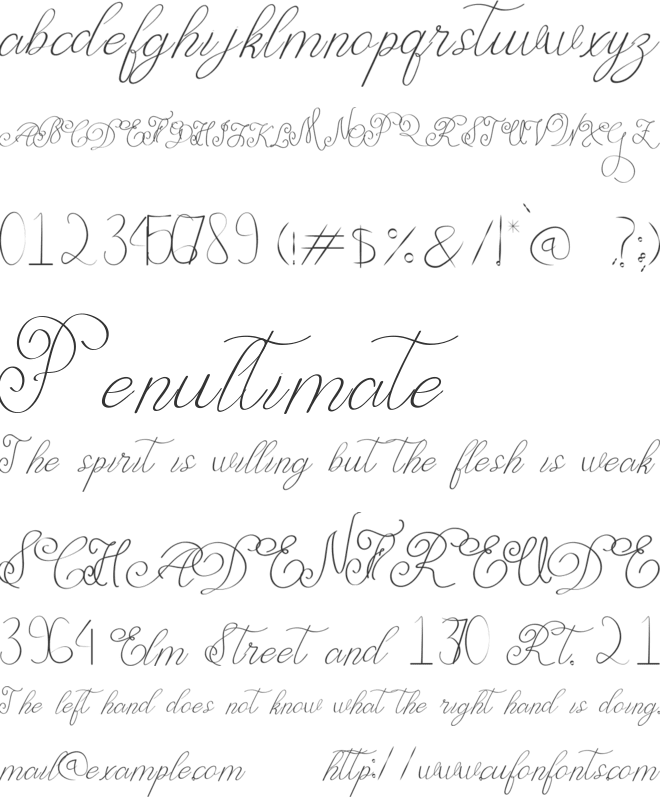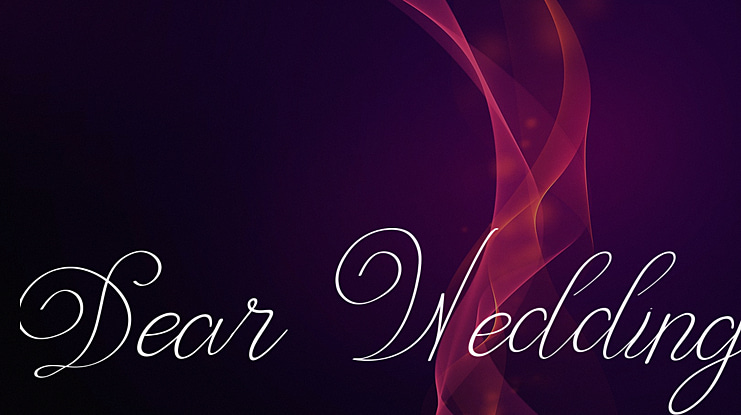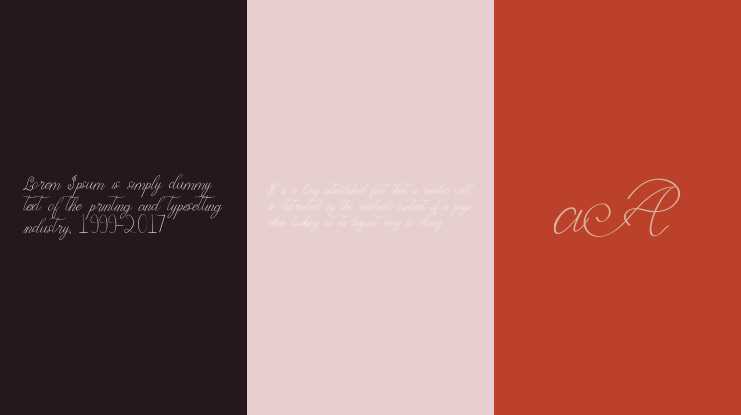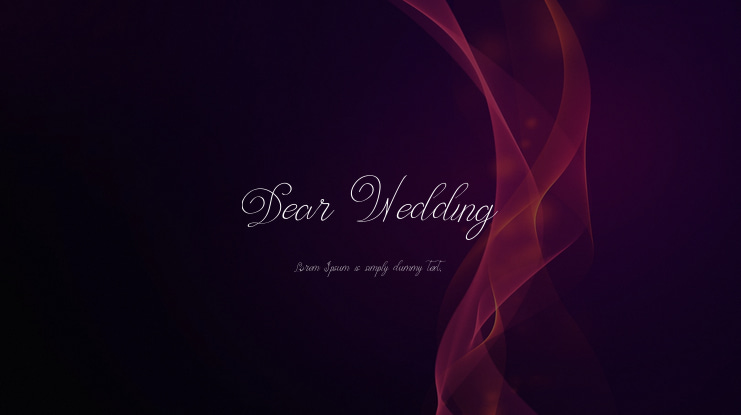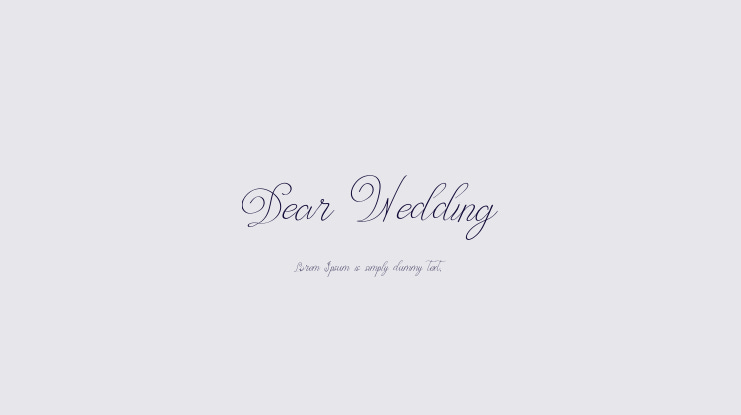
Dear Wedding Font Family
Dear Wedding is a simple and flowing handwritten font. Fall for its ravishing style and use it to create gorgeous wedding invitations, beautiful stationary art, eye-catching social media posts, and much more! creativedesign
Dear Wedding is perfect for product packaging, branding project, megazine, social media, wedding, or just used to express words above the background.